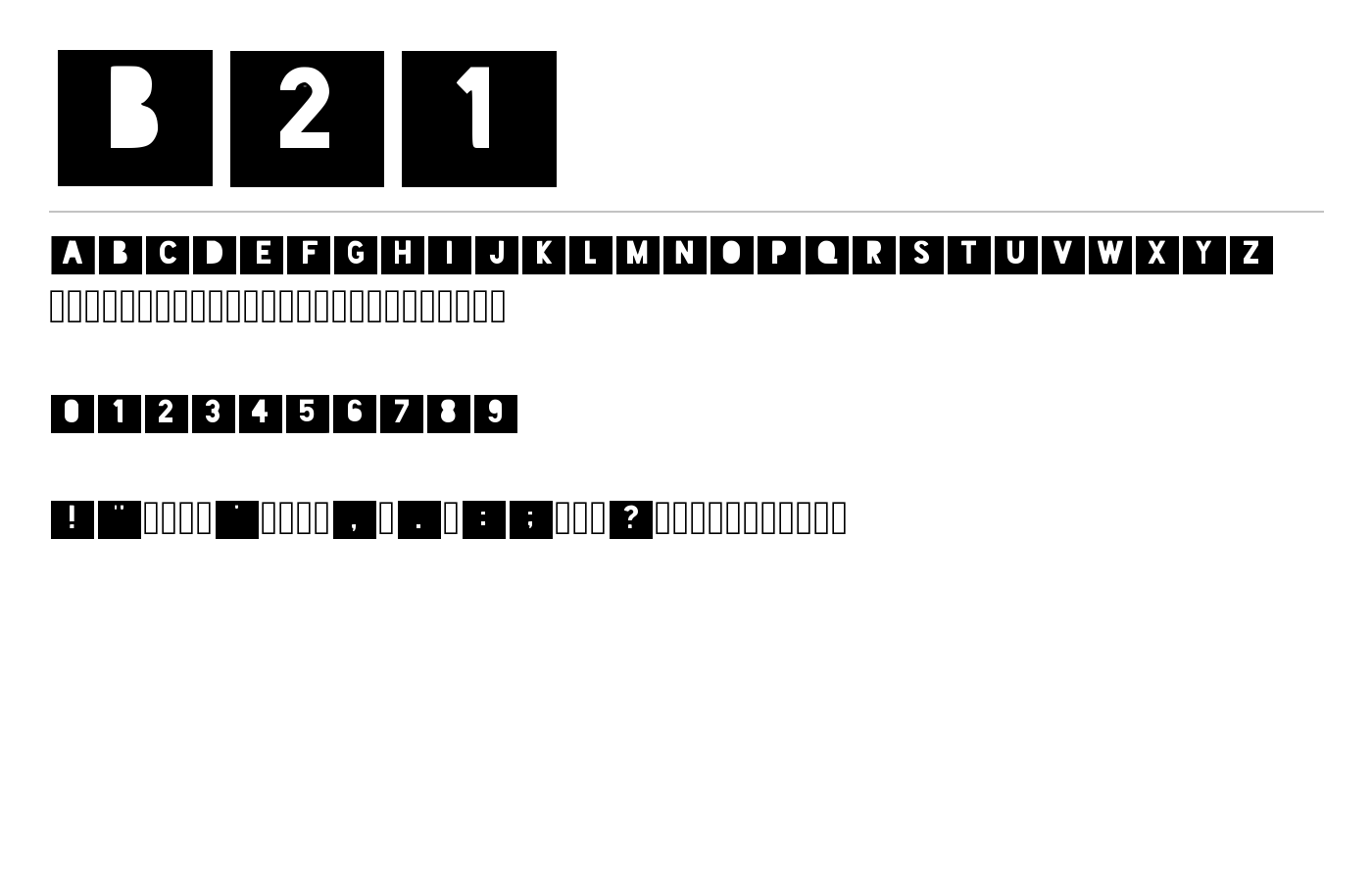
B21 Font is a bold, blocky sans serif typeface with a strong geometric feel and heavy weight, making it highly impactful and attention-grabbing. Its uppercase-only design features chunky letterforms with minimal contrast and playful shapes, perfect for eye-catching headlines, logos, and posters that need a modern and fun vibe. This font works especially well in branding and display uses where a bold, confident statement is desired.
B21 Font